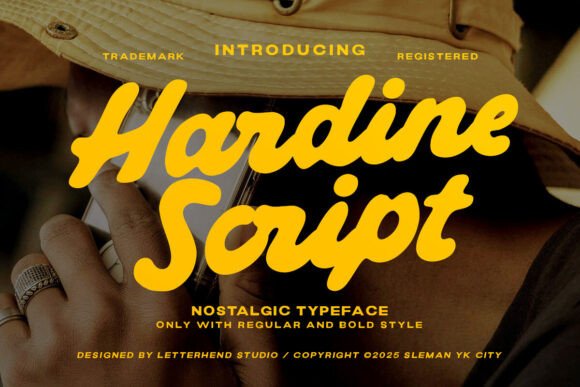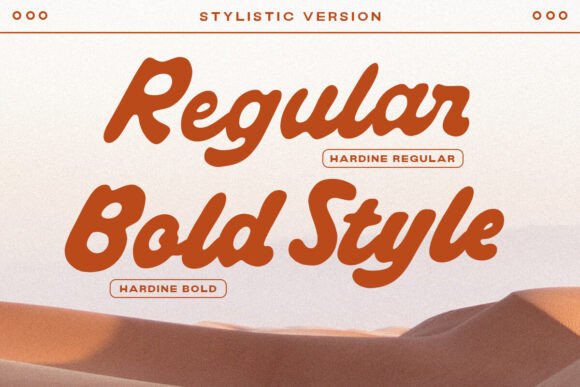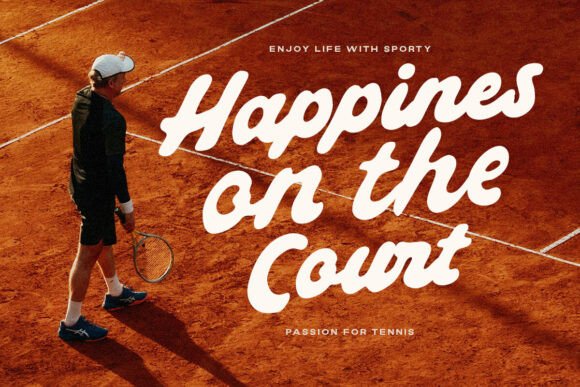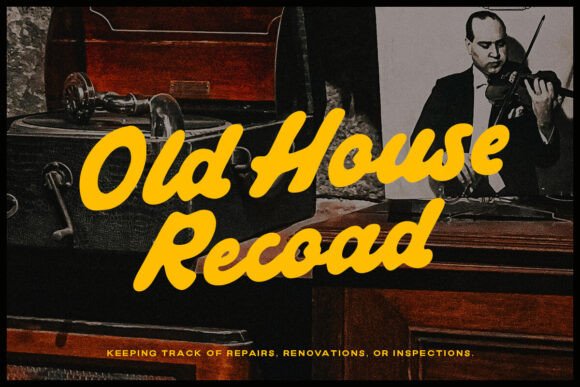
Hardine Font
About the Hardine Font
Introducing the Hardine Font, a beautifully crafted typeface designed to elevate your creative projects. Hardine Script is a bold and nostalgic typeface with a vintage charm and modern versatility, perfect for branding, posters, apparel, and retro-inspired designs. Its smooth curves and strong letterforms bring a warm, handcrafted feel while maintaining a dynamic, expressive look. Ideal for projects that need a mix of confidence and personality.
Hardine Script excels in headlines, logos, and short-form text applications such as posters and packaging where its bold strokes and vintage charm make a strong visual statement. It’s less suitable for body text or UI elements due to its relatively low x-height and potentially poor readability in long passages.
To enhance its impact, pair Hardine with a clean sans-serif like Montserrat or a geometric sans-serif such as Futura for a modern contrast. Alternatively, a subtle serif like Playfair Display can add a touch of refined elegance, balancing Hardine’s boldness with a classic touch. Avoid pairing it with other highly decorative or ornate typefaces to prevent visual clutter.
Hardine’s overall personality is confident and expressive, with a vintage-inspired energy that suggests nostalgia and a playful sophistication. It is well-suited for brands aiming for a retro-chic aesthetic or a timeless, handcrafted feel.